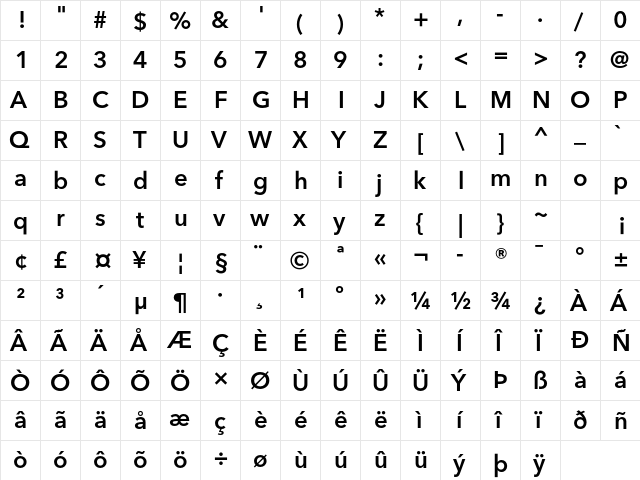
Avenir Next LT Pro Demi
| Foundry | Linotype Library GmbH |
| Designer | Adrian Frutiger and Akira Kobayashi |
Design Context for Avenir Next LT Pro Typeface
Avenir Next LT Pro offers clean, dependable letterforms without strong stylistic allegiance, making it a practical choice for designers who need flexibility. Its slender proportions lend an understated elegance to any composition.